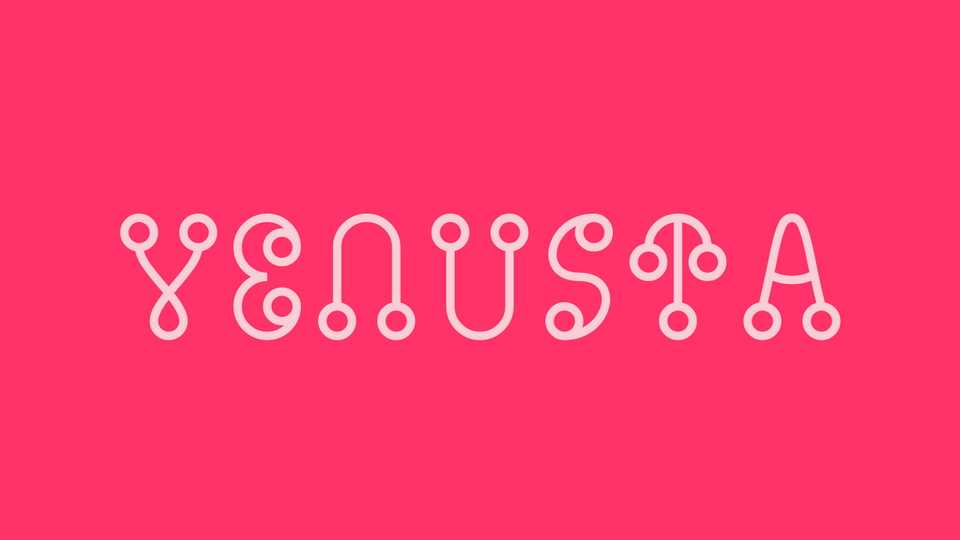
Download Venusta font, a decorative display typeface inspired by simple geometric forms and flower shapes. With its unique look Venusta font is perfect for posters, graphic artworks and typography compositions.